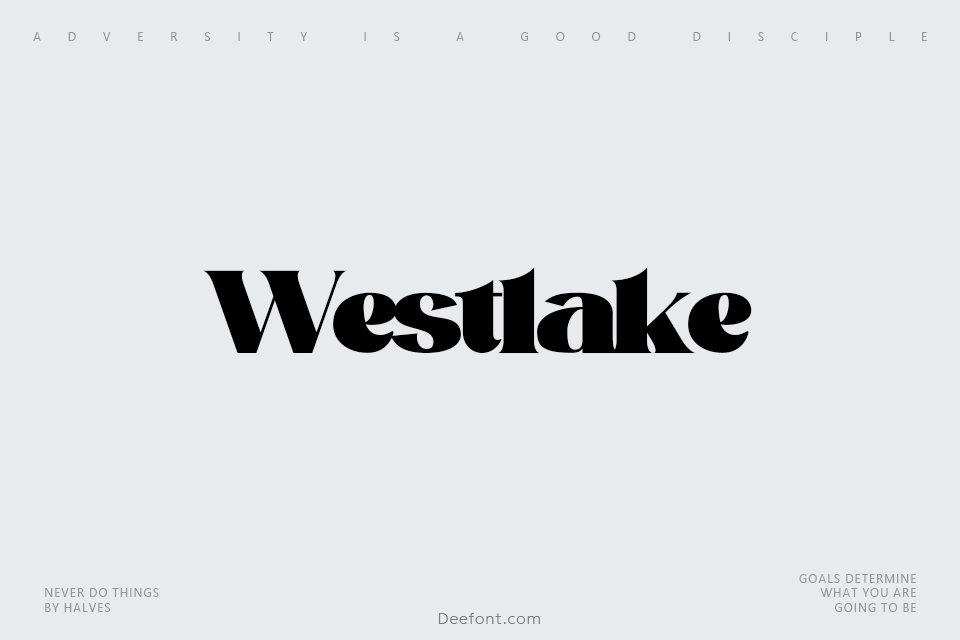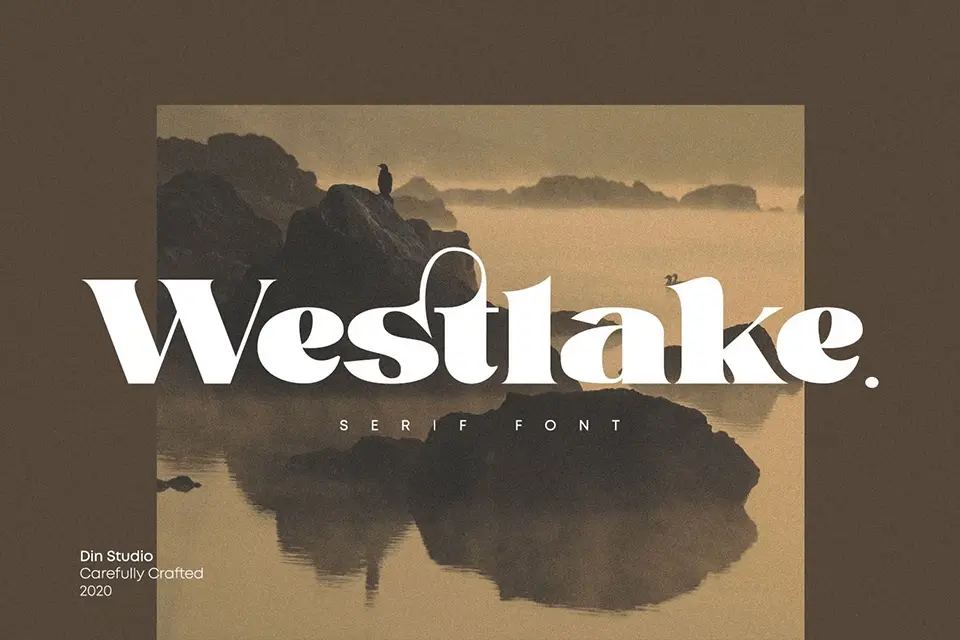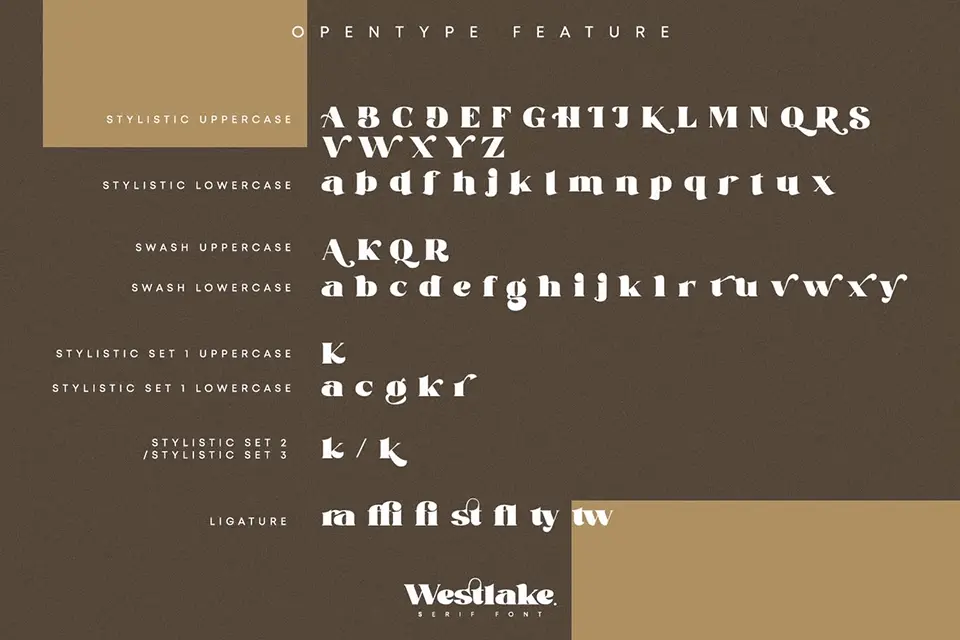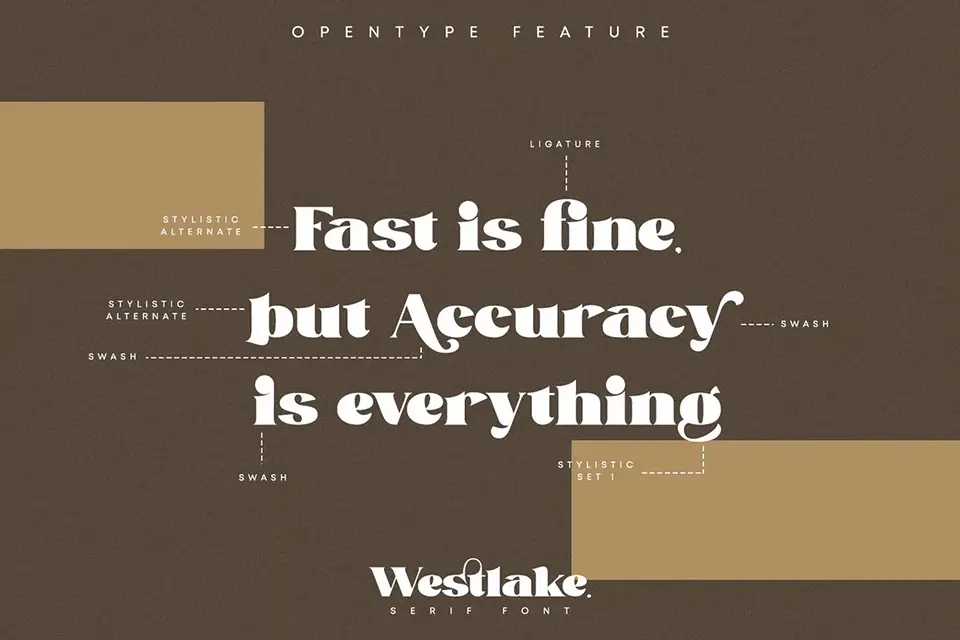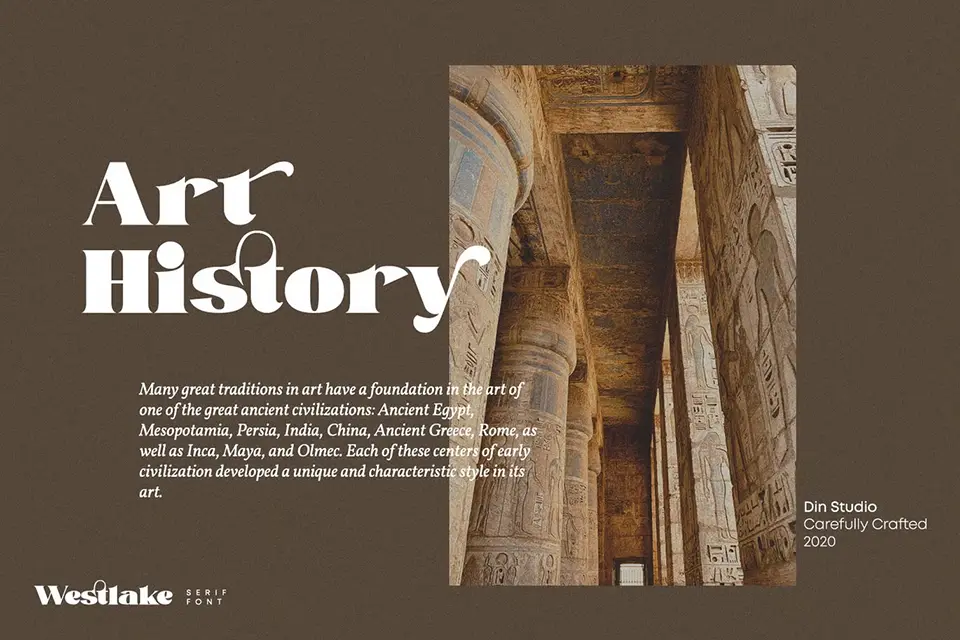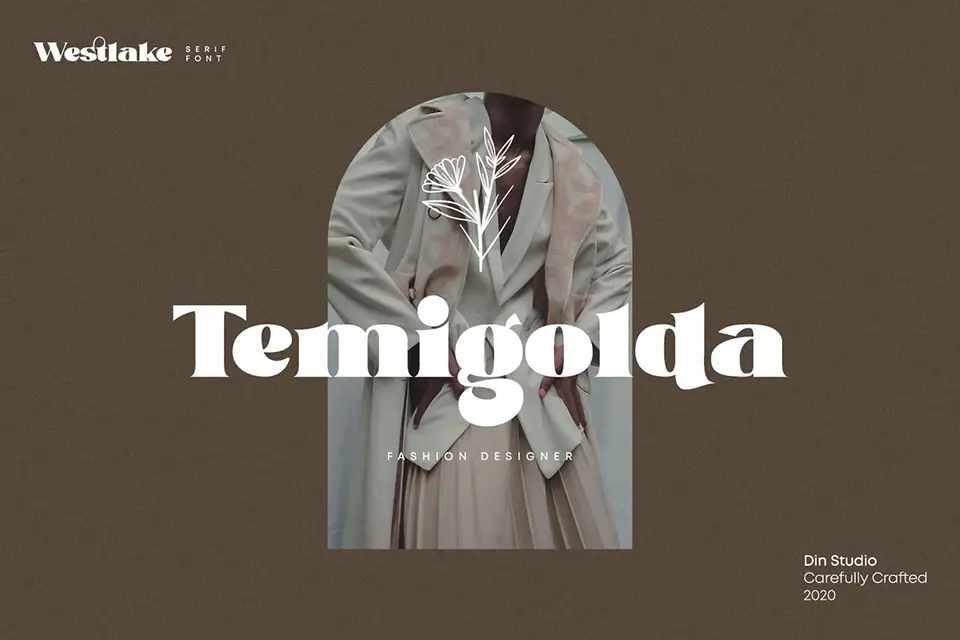
Westlake Font
Westlake is a versatile serif typeface designed for professional branding projects. This elegant font excels in logo design, branding applications, and typography-focused work. Each letter features unique details and beautiful touches, making it ideal for creating distinctive visual identities. Westlake includes ligatures, stylistic sets, swashes, and multilingual support, offering designers comprehensive tools for sophisticated typographic compositions. Perfect for creating memorable branding materials and professional design work.